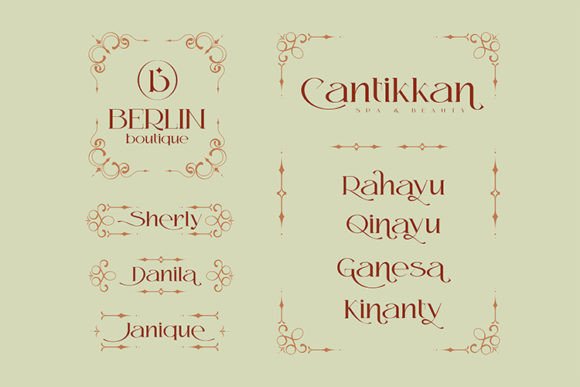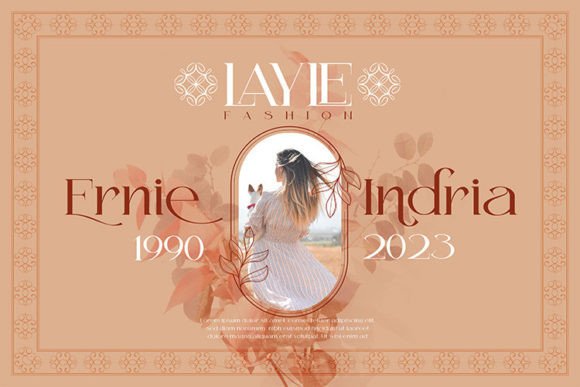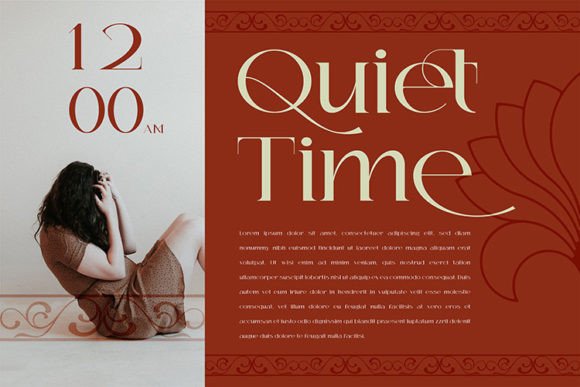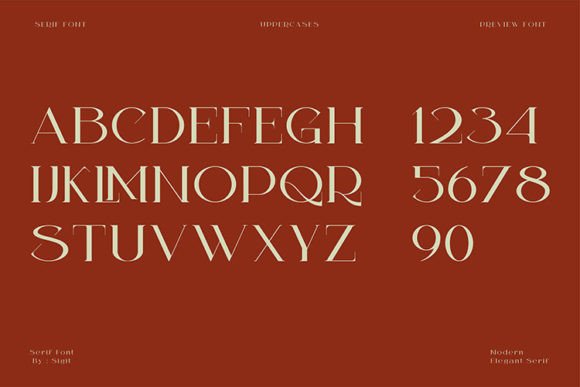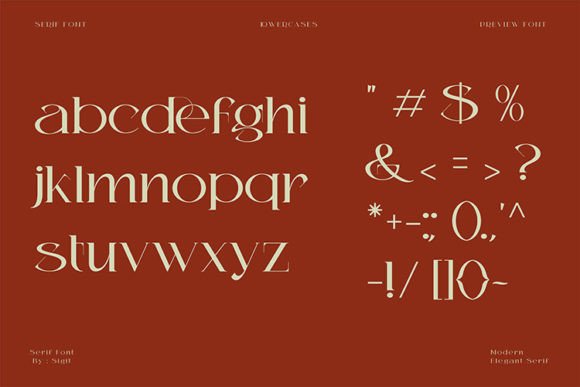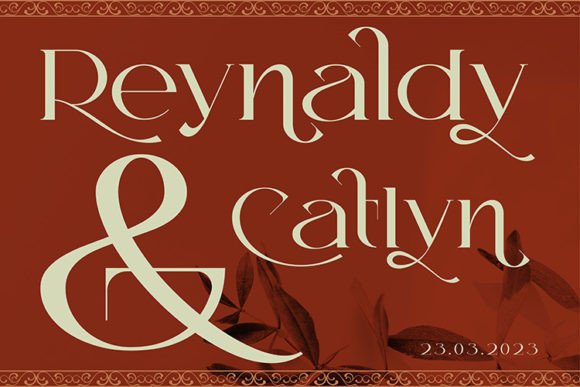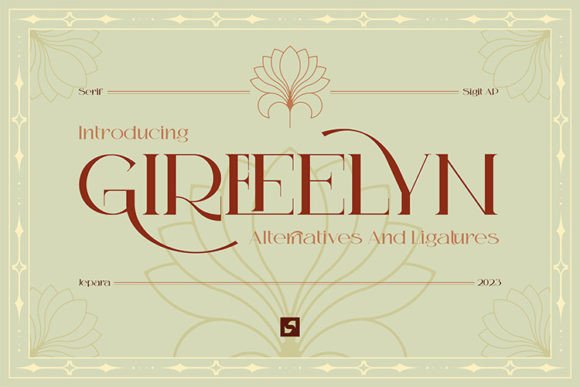
Girefelyn Font: Elevate Your Designs with Elegance and Sophistication
In the world of typography, fonts play a crucial role in conveying the tone and personality of a brand or design. For those seeking to add a touch of luxury and refinement to their work, the Girefelyn font is an excellent choice. This elegant serif font is designed to exude sophistication, making it perfect for high-end print materials, editorial design, and luxury branding.
The Characteristics of Girefelyn Font
Girefelyn is distinguished by its thin, elongated serifs and clean lines, which create a graceful appearance that commands attention. The font’s sleek and refined aesthetic makes it an ideal choice for designers who want to add a touch of elegance to their work. Whether you’re designing a luxury brand’s logo, creating an editorial spread, or crafting high-end print materials, Girefelyn is sure to impress.
One of the standout features of Girefelyn is its versatility. Available in a variety of weights and styles, this font can be adapted to suit a range of design needs. From bold and dramatic to light and subtle, Girefelyn offers a range of options that allow designers to experiment with different looks and feels. This versatility makes it an excellent addition to any designer’s toolkit.
Perfect for Luxury Branding
Luxury branding requires a font that can convey sophistication, elegance, and refinement. Girefelyn fits the bill perfectly, with its sleek lines and refined aesthetic. Whether you’re designing a logo, packaging, or marketing materials, Girefelyn is sure to help you create a cohesive and luxurious brand image.
Editorial Design and High-End Print Materials
Girefelyn is also an excellent choice for editorial design and high-end print materials. Its elegant appearance makes it perfect for use in magazines, newspapers, and books, while its versatility allows it to be used in a range of print materials, from business cards to billboards.
Why Choose Girefelyn Font?
So why choose Girefelyn font for your design needs? Here are just a few reasons:
- Elegance and sophistication: Girefelyn’s refined aesthetic makes it perfect for luxury branding, editorial design, and high-end print materials.
- Versatility: With a range of weights and styles available, Girefelyn can be adapted to suit a range of design needs.
- Clean lines and thin serifs: Girefelyn’s sleek lines and refined serifs create a graceful appearance that’s sure to impress.
- Easy to read: Despite its elegant appearance, Girefelyn is easy to read, making it perfect for use in body text and headlines.
In conclusion, the Girefelyn font is an excellent choice for designers seeking to add a touch of elegance and sophistication to their work. With its refined aesthetic, versatility, and ease of use, Girefelyn is perfect for luxury branding, editorial design, and high-end print materials. Whether you’re a seasoned designer or just starting out, Girefelyn is sure to become a valuable addition to your toolkit.
Get Creative with Girefelyn
So why not give Girefelyn a try? With its range of weights and styles, you’re sure to find the perfect combination to suit your design needs. Whether you’re looking to create a luxurious brand image, craft high-end print materials, or simply add a touch of elegance to your designs, Girefelyn is the perfect choice.